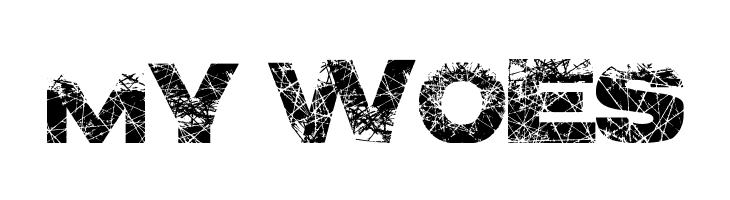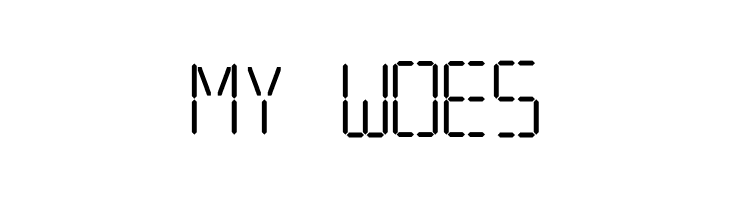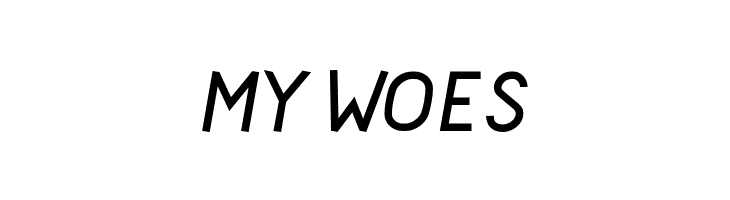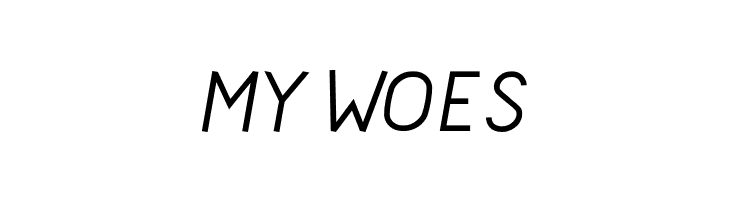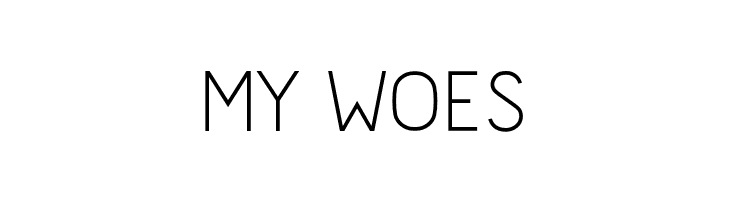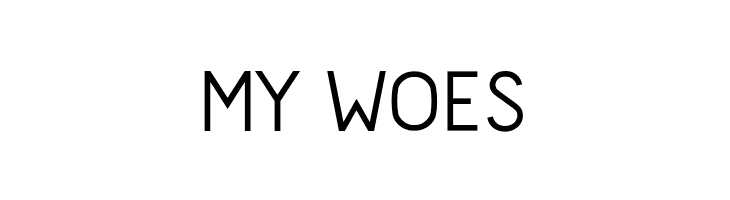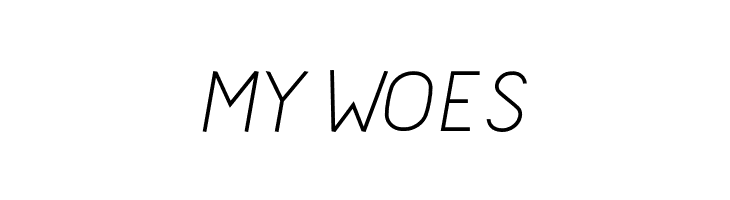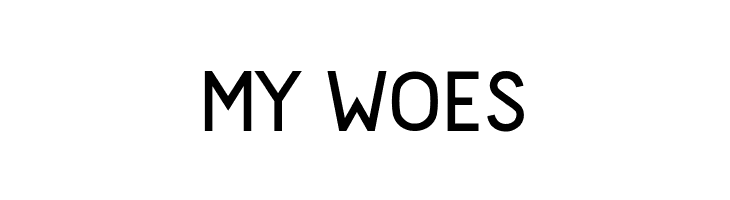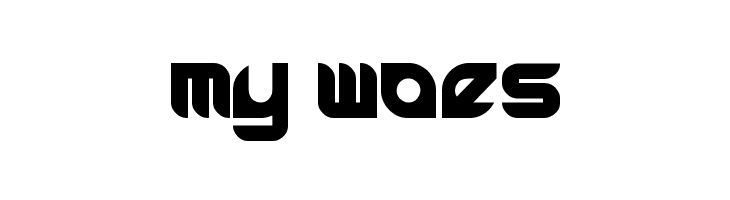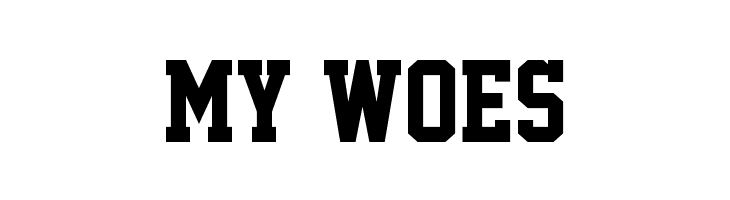
( Fonts by John Isles )
A dot matrix font with a retro, digital display aesthetic.
( Fonts by Tom Oetken - Ash Pikachu Font )
A digital display font with a classic 7-segment style, evoking retro tech aesthetics.
A segmented, digital display-inspired font with a geometric and mechanical style.
( Fonts by www.philing.net )
A segmented, digital-style font resembling an LED display.
( Fonts by www.philing.net )
A digital display-inspired font with a segmented, italicized style.
( Fonts by Cumberland Fontworks - http://www222.pair.com/sjohn/fonts.htm - S. John Ross )
A bold, distressed font with a vintage, rugged appearance.
( Attila Acs - attilaacs.com )
A distressed, typewriter-style font with a vintage, rugged appearance.
( Andrew Tyler - www.AndrewTyler.net )
A bold, pixelated font with a retro digital style.
( Fonts by Rich Gast - www.greywolfwebworks.com OFF SITE )
A futuristic, geometric font with bold, rounded shapes and cut-out sections.
( Fonts by tiagopompeu.carbonmade.com - Tiago Pompeu )
A modern, rounded sans-serif font with smooth curves and a clean, approachable design.
( Fonts by Mohammed Rahman )
A bold, geometric font with a strong, authoritative presence.
( Fonts by www.26plus-zeichen.de )
A modern, geometric sans-serif font with uniform width and clear readability.
( Fonts by www.26plus-zeichen.de )
Bold, geometric font with a modern and assertive style.
( Fonts by www.26plus-zeichen.de )
A bold, italicized font with a dynamic and slightly condensed style.
( Fonts by www.26plus-zeichen.de )
A sleek, modern italic font with clean lines and a dynamic slant.
( Fonts by www.26plus-zeichen.de )
A modern, italicized sans-serif font with clean lines and a sleek design.
( Fonts by Astigmatic One Eye Typographic Institute - Brian J. Bonislawsky - astigmatic.com )
A bold, modern font with geometric influences and unique character curvature.
A bold, distressed font with a cracked texture for a rugged look.
A bold, distressed font with a cracked texture for an edgy look.
A bold, distressed font with a grunge, textured appearance.
A bold, distressed font with a grunge texture and strong, blocky characters.